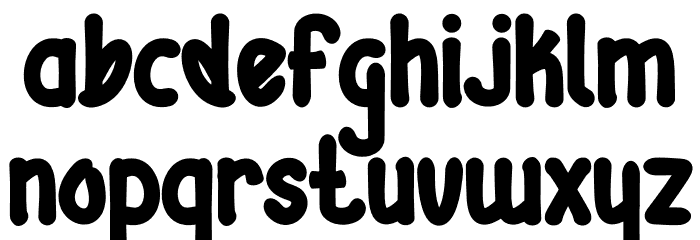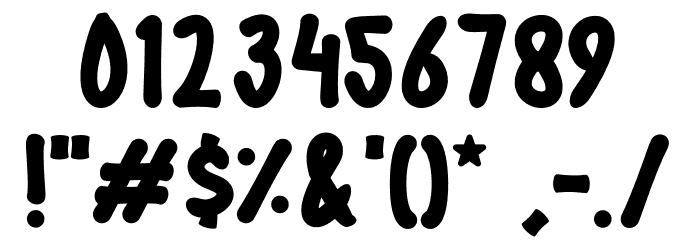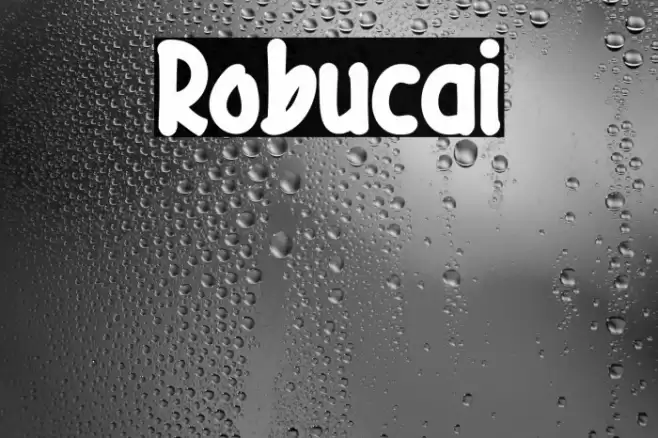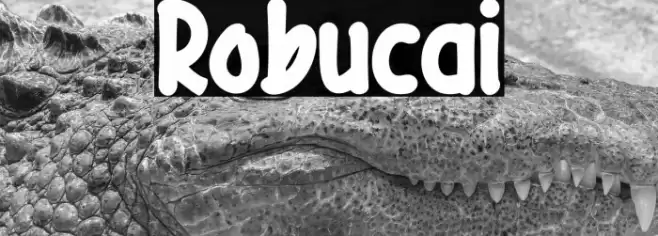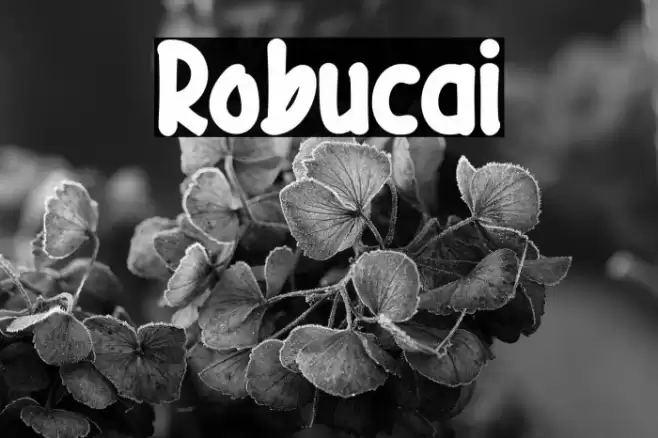
Robucai Font
This font features a bold and playful style with rounded edges and a slightly irregular form, giving it a hand-drawn appearance. The characters are thick and substantial, providing a strong visual impact. The uppercase and lowercase letters maintain a consistent weight, contributing to a cohesive look. The numbers and special characters follow the same design principles, ensuring uniformity across all elements. This font's unique style makes it suitable for projects that require a fun and informal touch.
A bold, playful font with rounded, hand-drawn characters.
- Proposed Projects: Ideal for children's books, playful branding, posters, and casual invitations.
- Overall Style: Playful